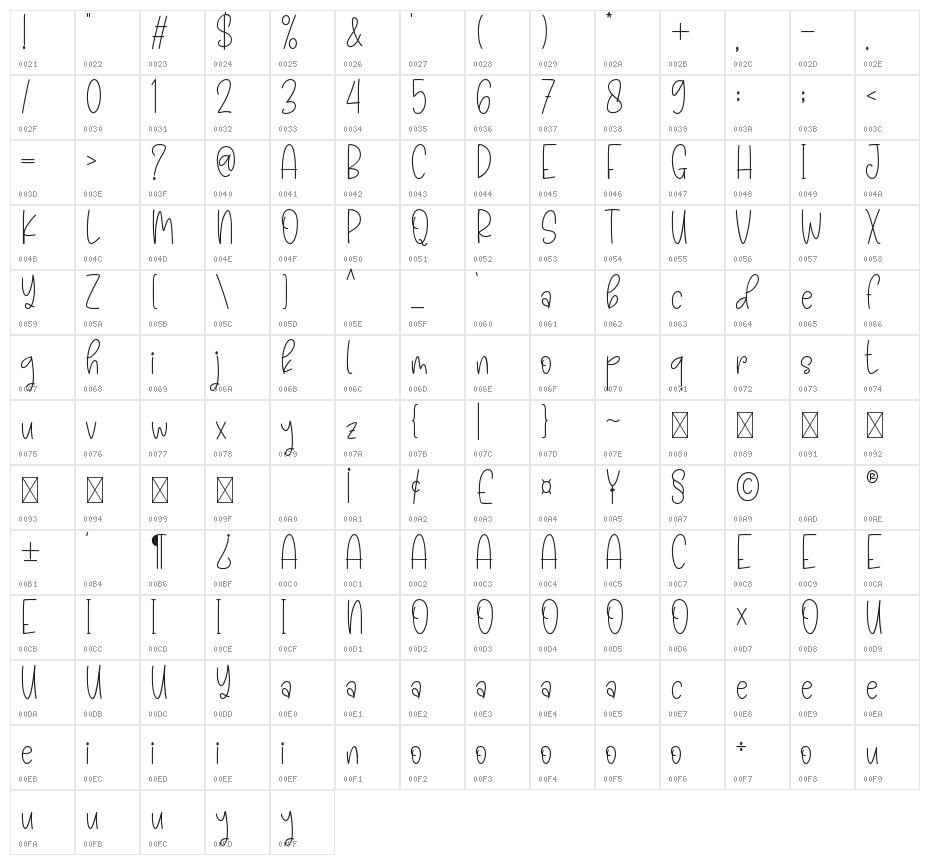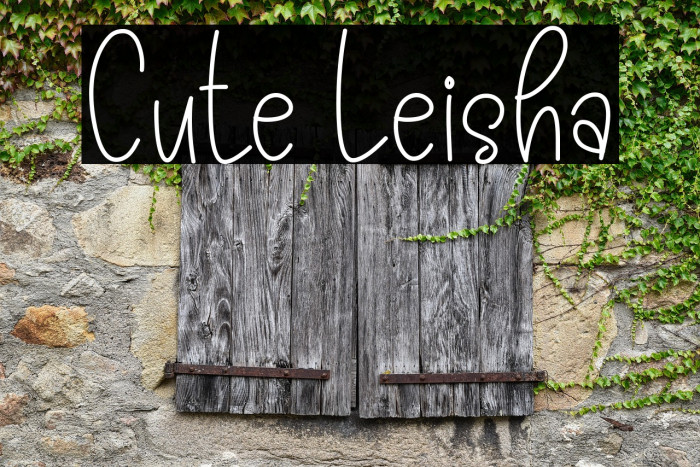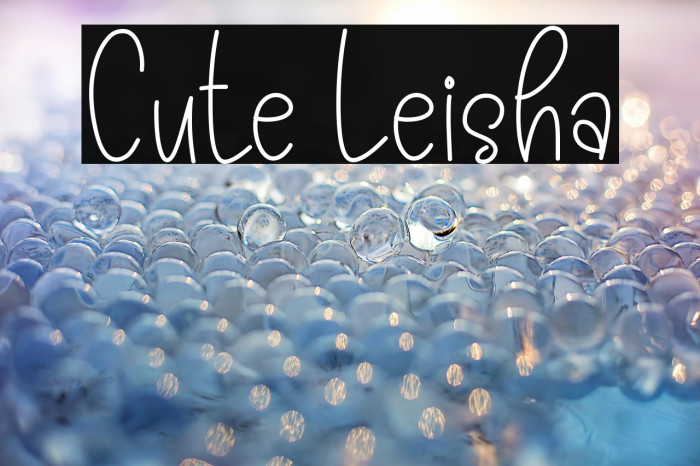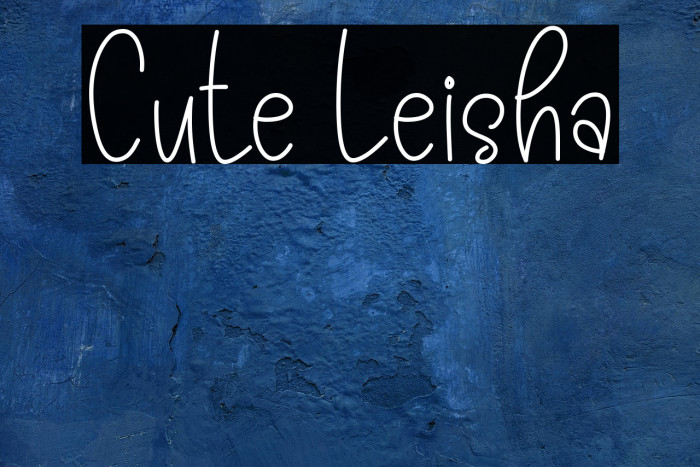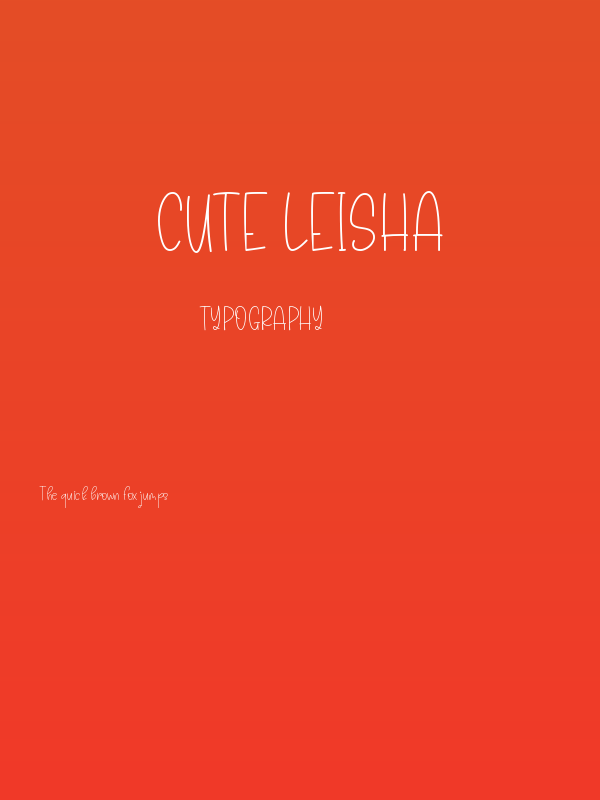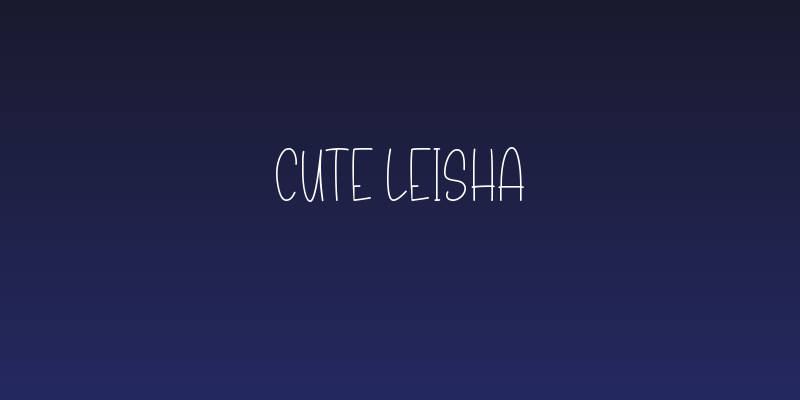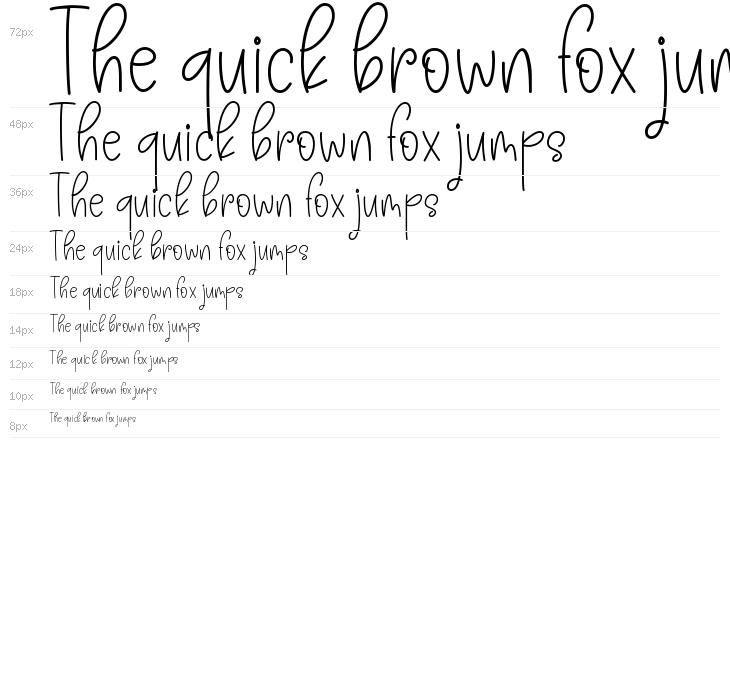
Cute Leisha Font
Cute Leisha Description
A playful and whimsical handwritten font with tall, narrow characters and a casual style.
| Overall Style | Casual and whimsical |
| Use Case | Headlines, Informal text |
| Proposed Projects | Greeting cards, children's books, casual invitations. |